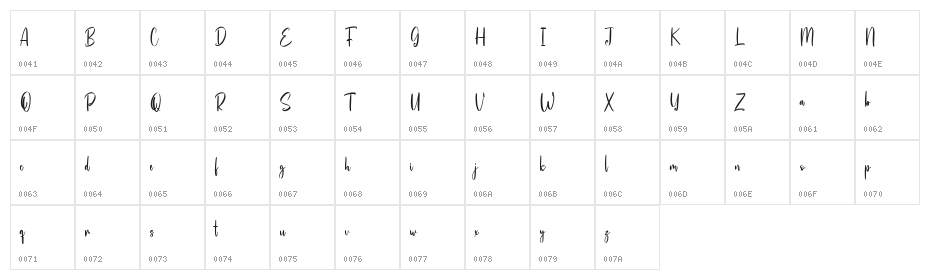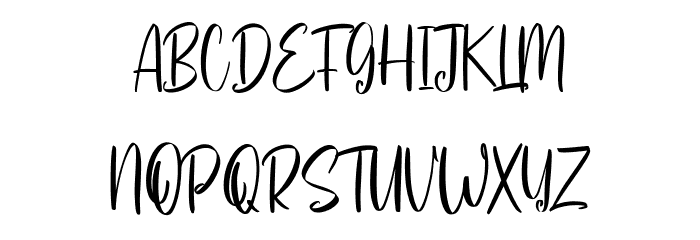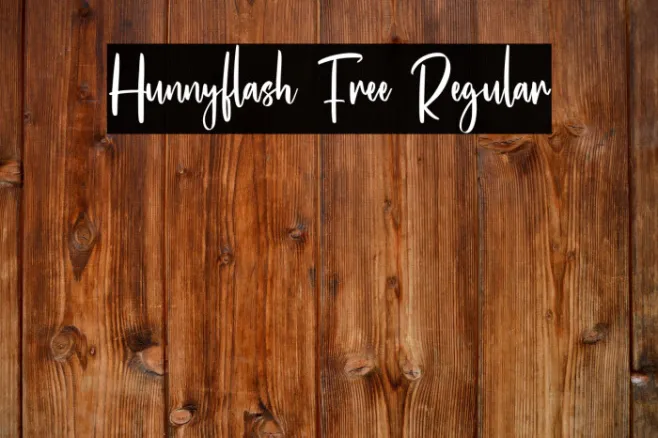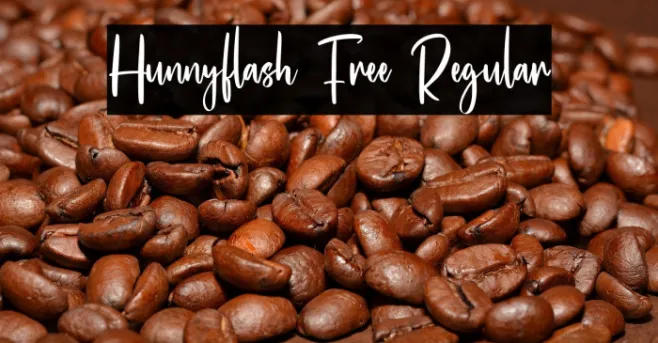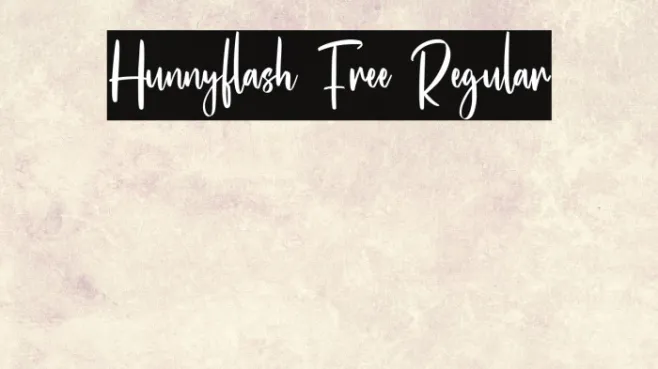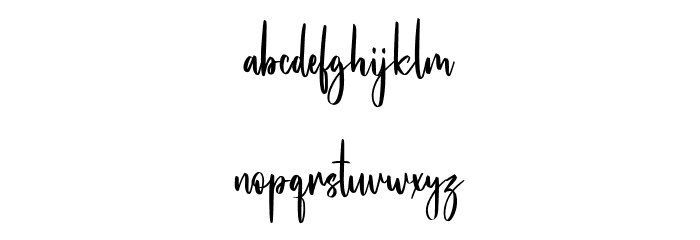
Hunnyflash Free Regular Font
Hunnyflash Free Regular Description
This font features a playful and energetic script style, characterized by its fluid and dynamic strokes. The letters are crafted with a sense of movement, giving it a lively and informal appearance. The uppercase letters are bold and slightly elongated, while the lowercase letters maintain a consistent flow with occasional loops and swirls. The overall design is modern and expressive, making it suitable for creative and artistic projects. The font's unique character is enhanced by its medium contrast in stroke thickness, providing a balanced and visually appealing look.
| Proposed Projects | Ideal for greeting cards, invitations, branding, and social media graphics. |